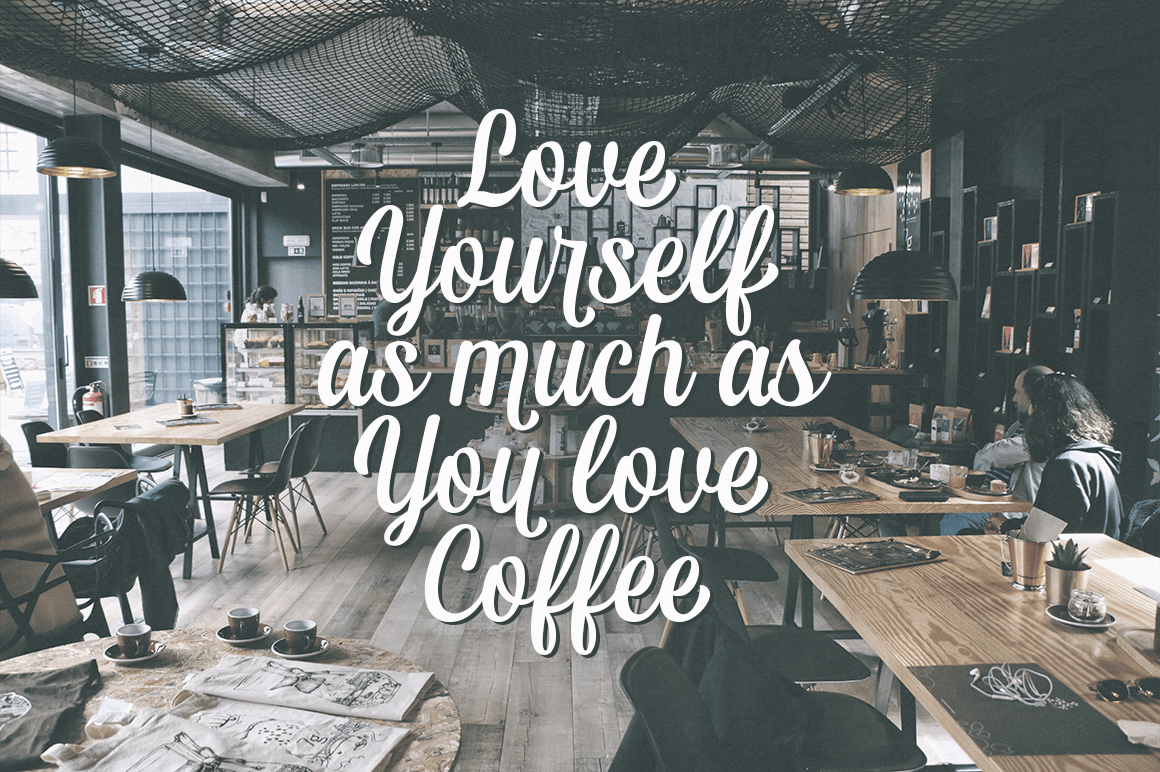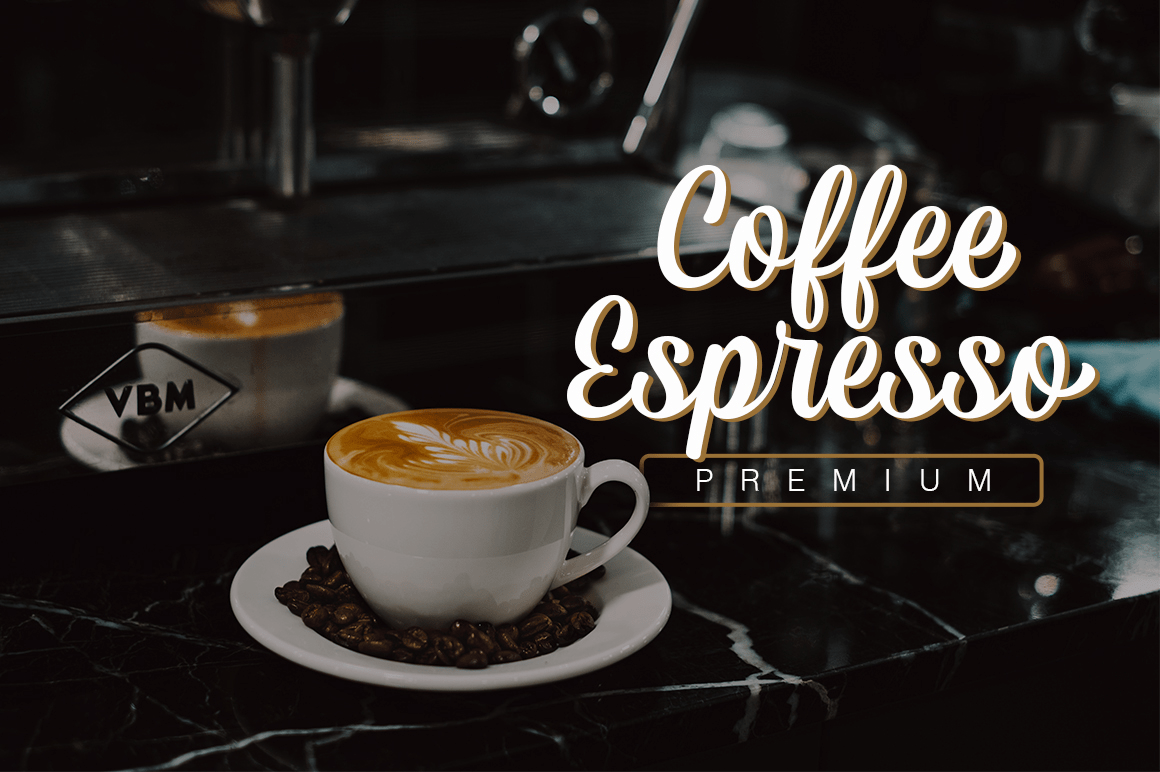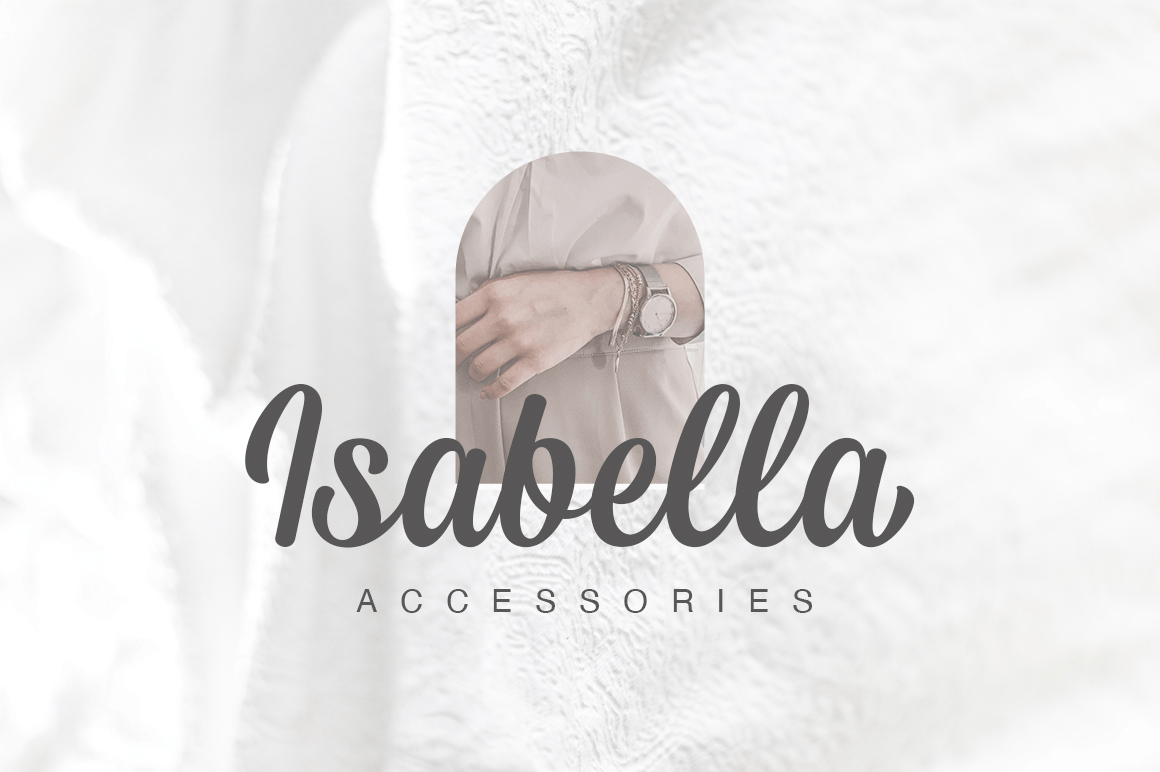
About Haesley
Introducing! Haesley is modern script typeface that perfect for photography, branding, signature. It is so beautiful and classy for your projects. This Font has given PUA code (specially coded fonts). So that all the alternate characters can easily…